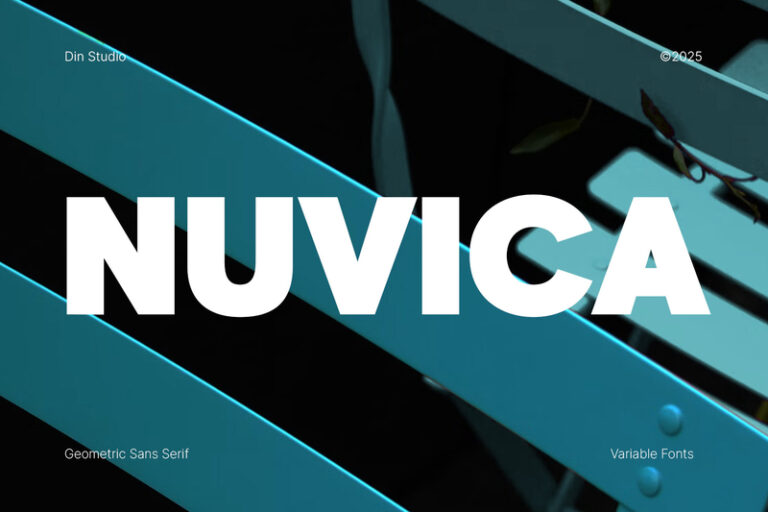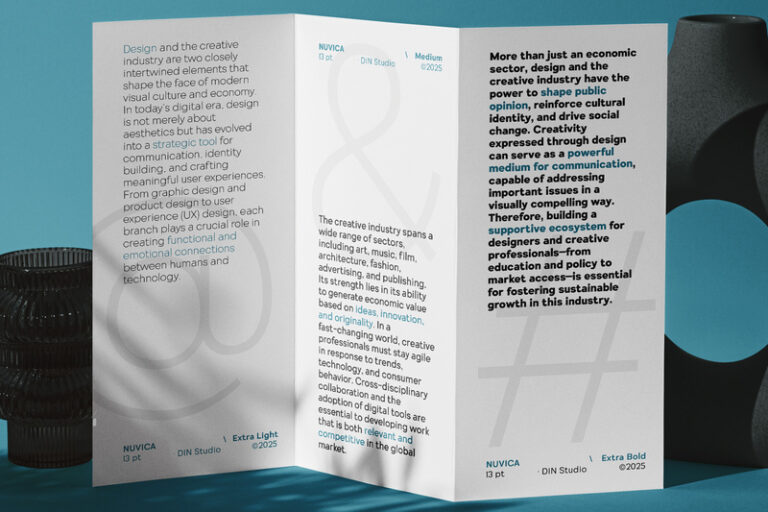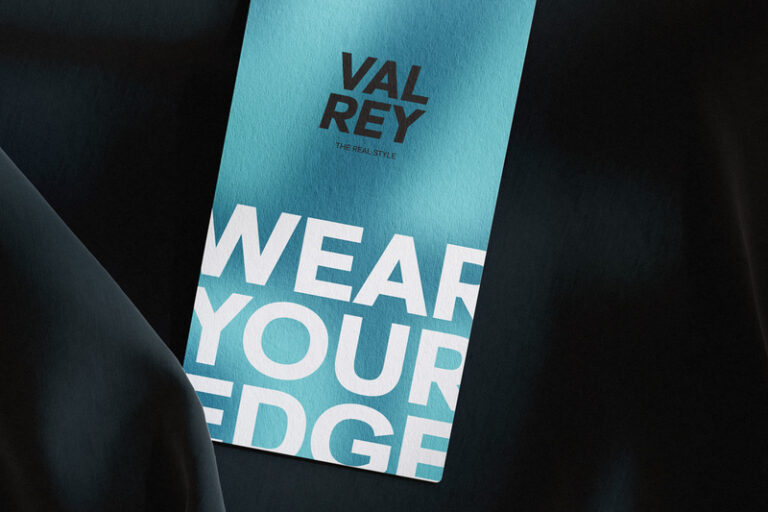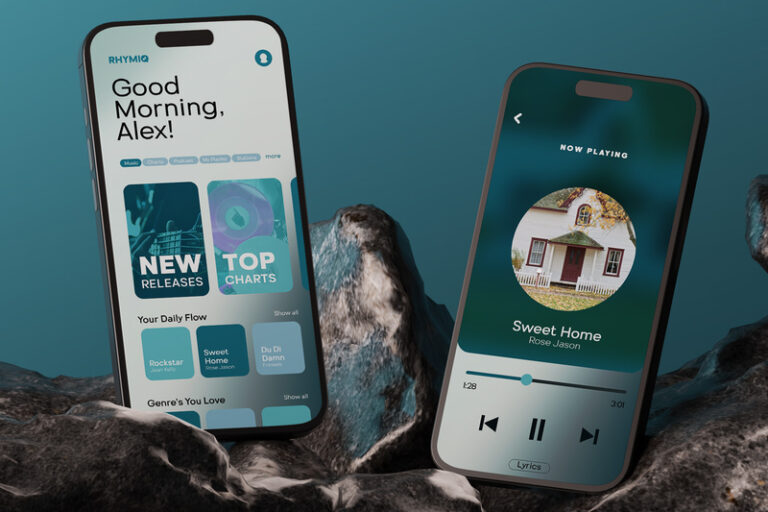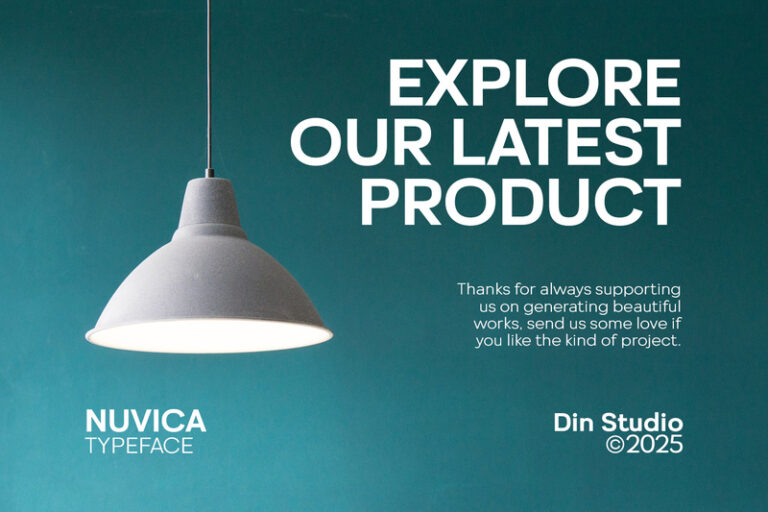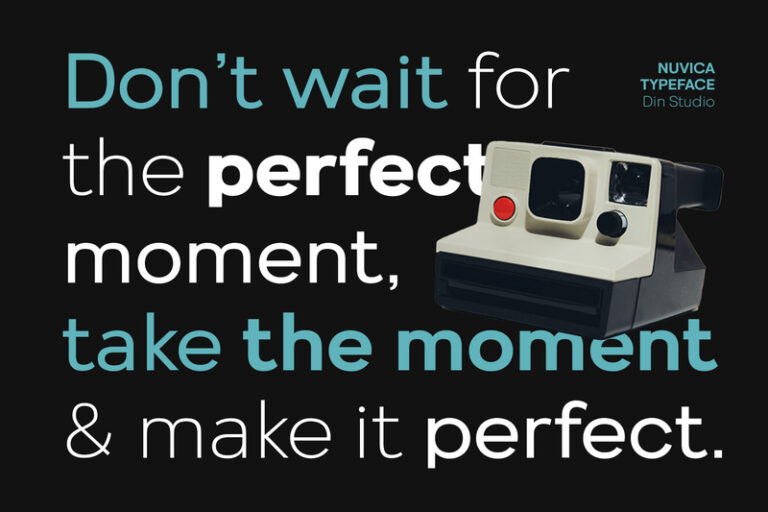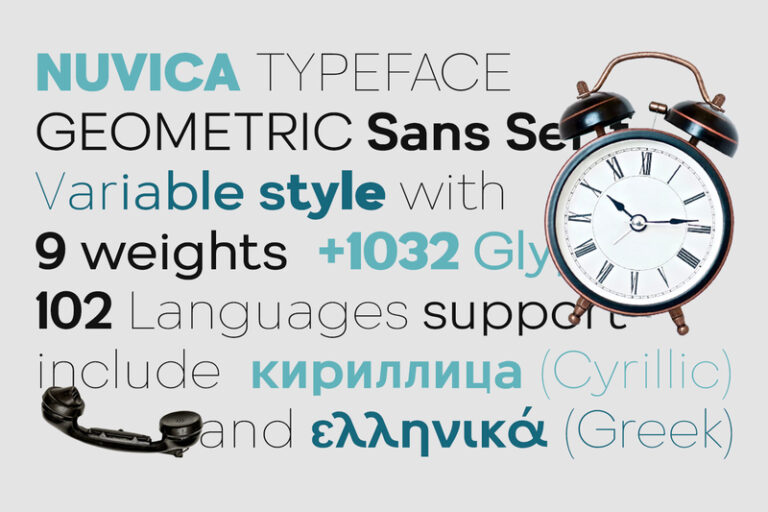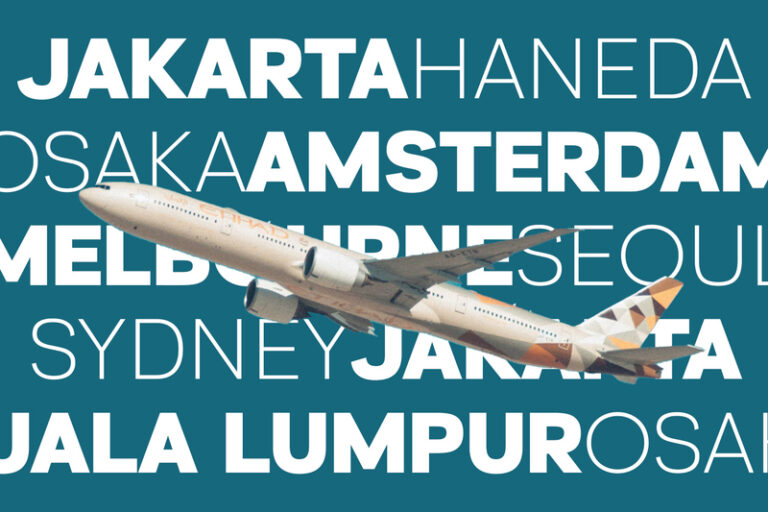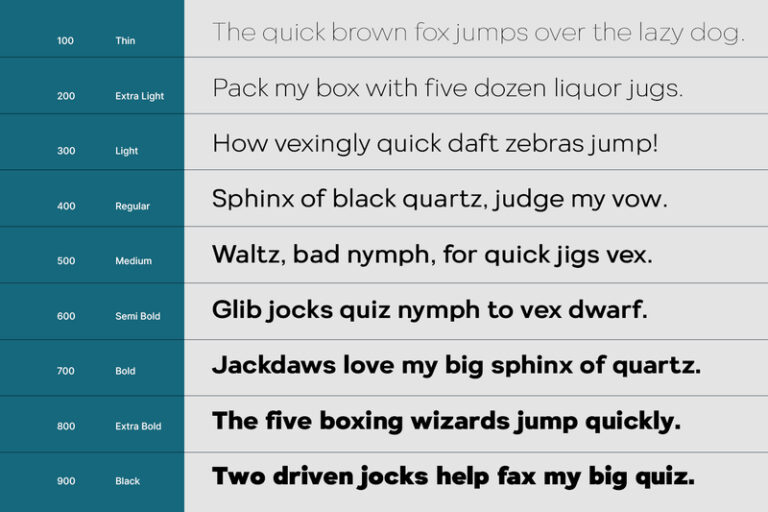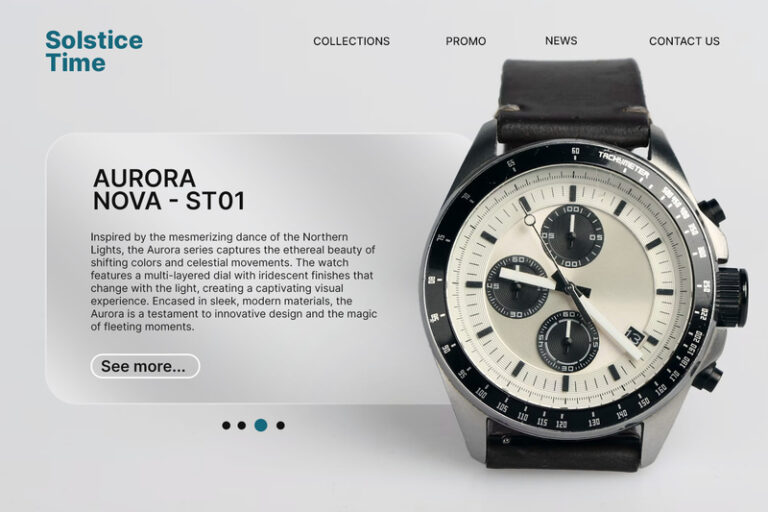
Nuvica-Geometric Sans Serif Font Family
Nuvica is a modern geometric sans serif font family designed to deliver a clean, aesthetic, and contemporary impression. Featuring nine carefully crafted weights from Thin to Black, Nuvica offers exceptional versatility for a wide range of design needs. Its precise geometric construction creates a harmonious, balanced look with crisp, minimalist lines that feel fresh and timeless. Nuvica combines functionality with refined style, making it an essential tool for today’s designers. In addition, enjoy the features here.
Nuvica fits in name cards, branding, packaging, posters, headlines, editorial designs, and many more designs. Find out more ways to use this font by taking a look at the font preview.